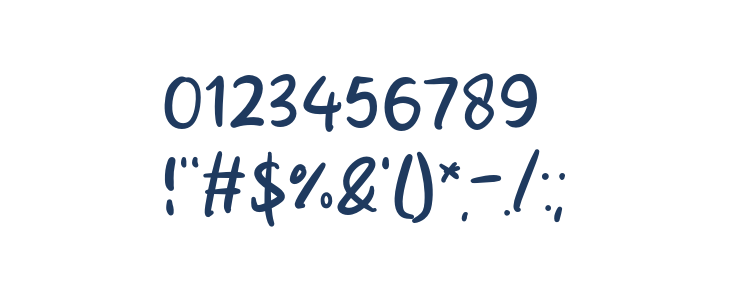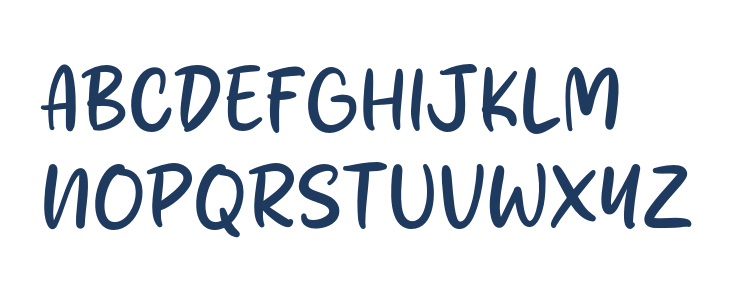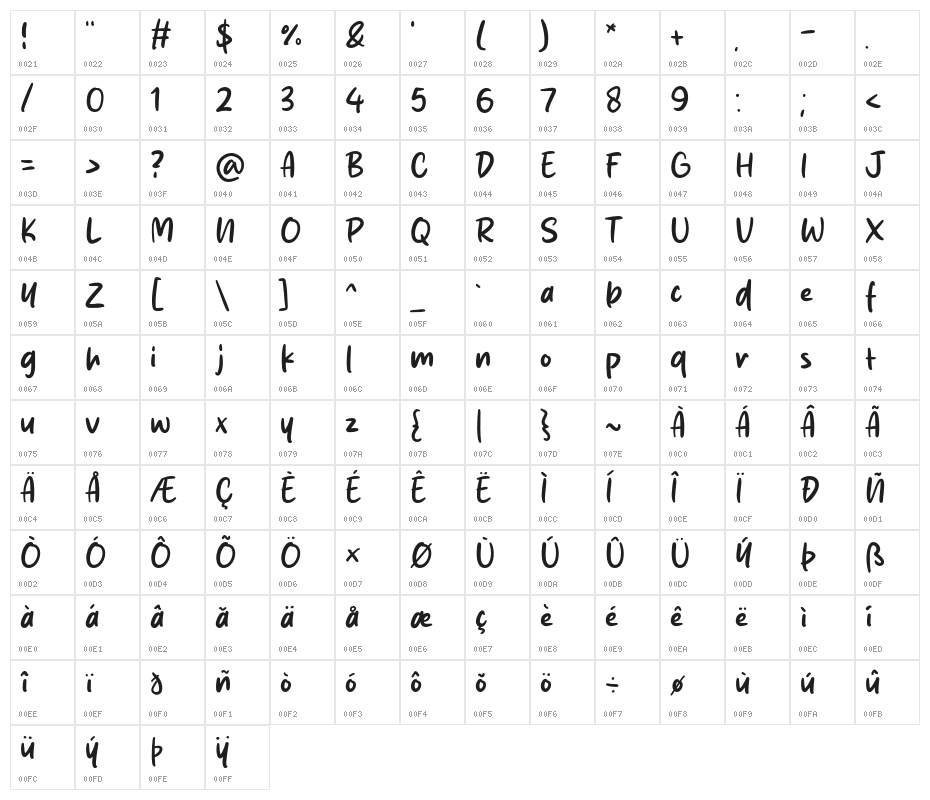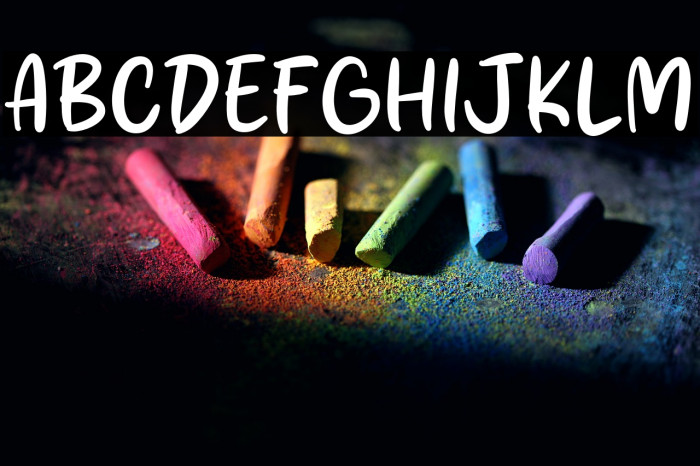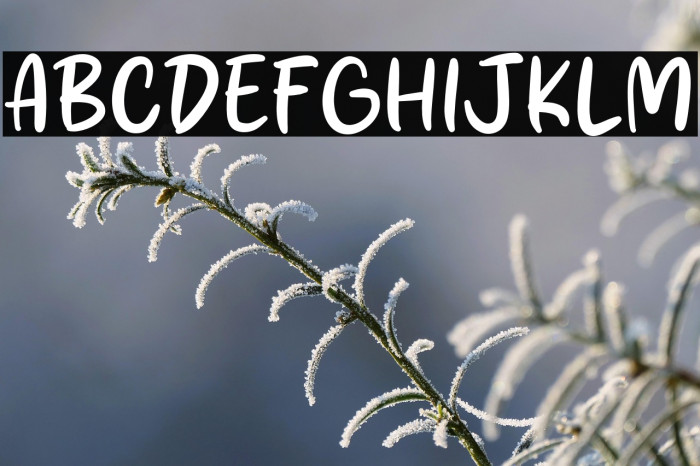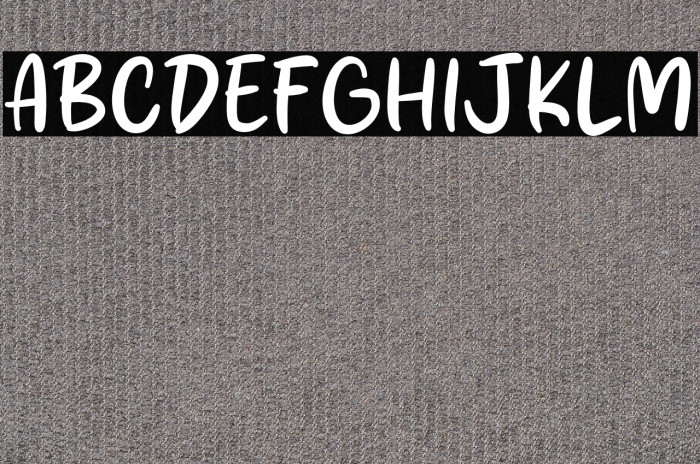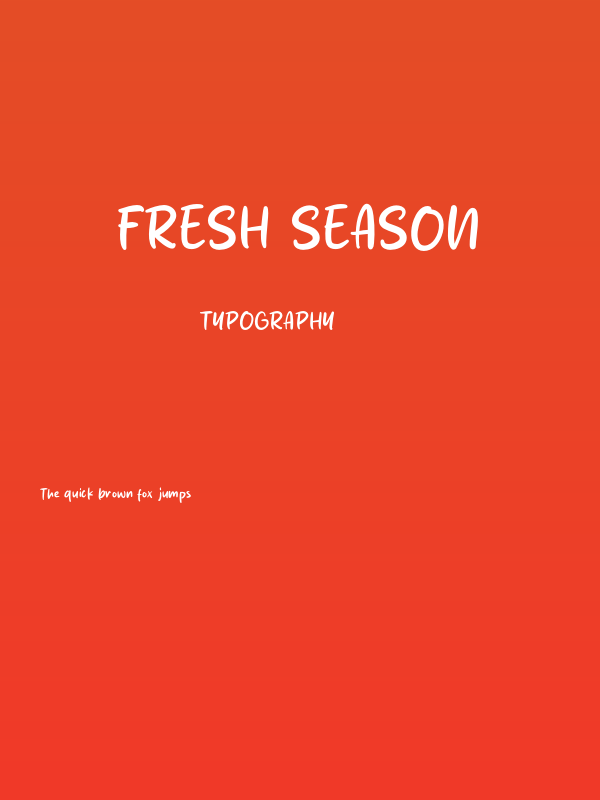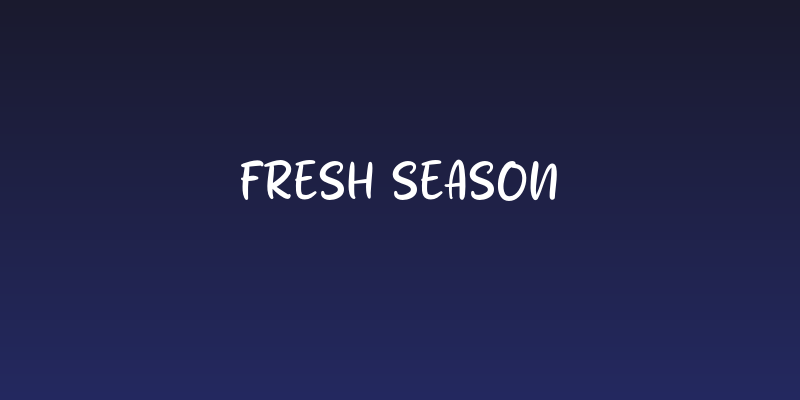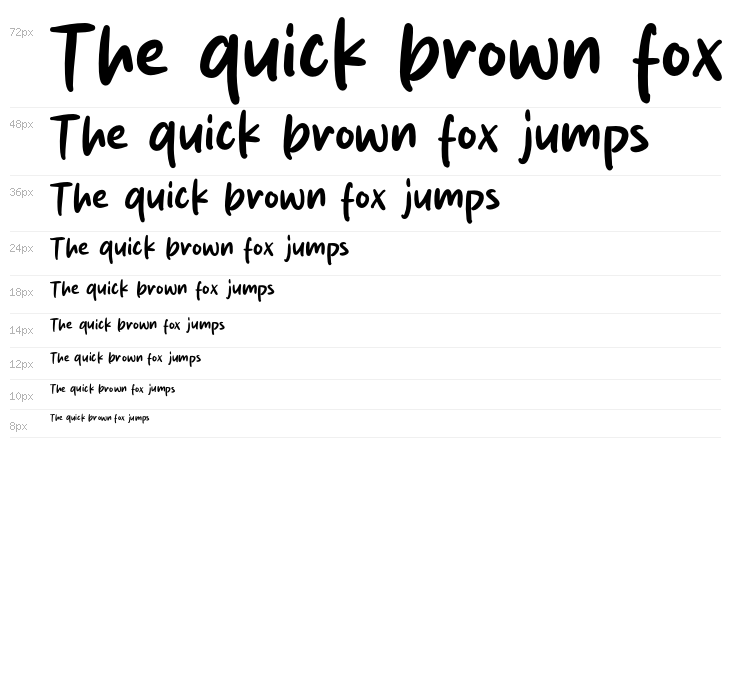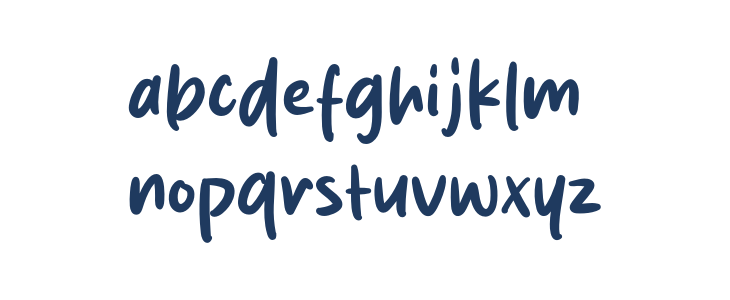
Fresh Season Font
Fresh Season Description
A playful, casual handwritten font with rounded strokes and a natural, slightly irregular flow. The characters are bold and legible, with consistent stroke thickness and a friendly appearance.
| Overall Style | Playful, Casual, Friendly |
| Use Case | Headlines, Logos, Short text, Informal communication |
| Proposed Projects | Greeting cards, posters, children's books, social media graphics, informal branding. |